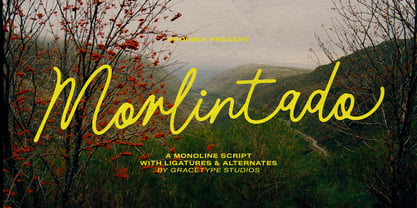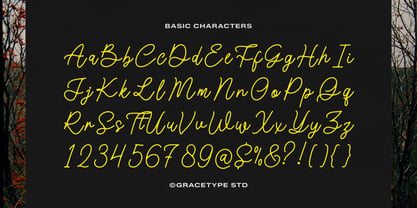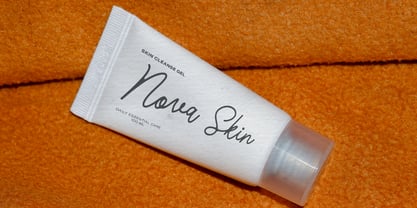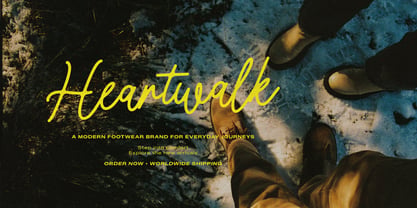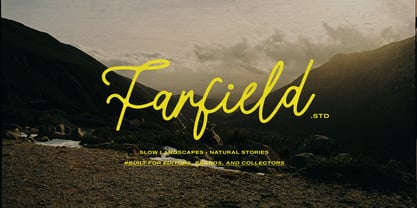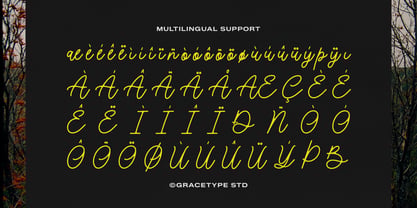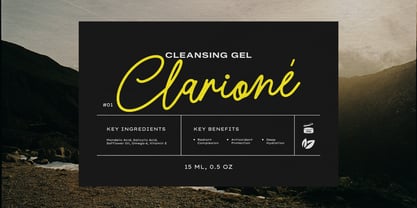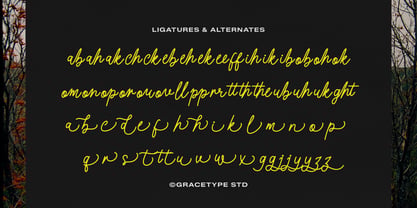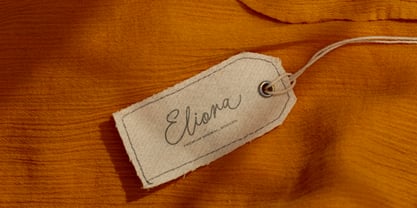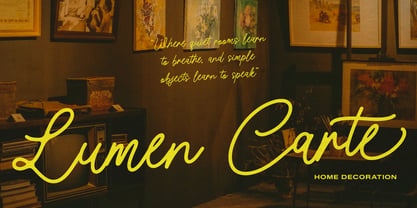
Morlintado
by Tini Fitriani
Morlintado | Monoline Script, from Gracetypestudio, suitable for any projects such as: logos, branding projects, homeware designs, product packaging, mugs, quotes, posters, shopping bags, t-shirts, book covers, name card, invitation cards, greeting cards, label, photography, watermark, special events, and all your other lovely projects that need a Script taste.